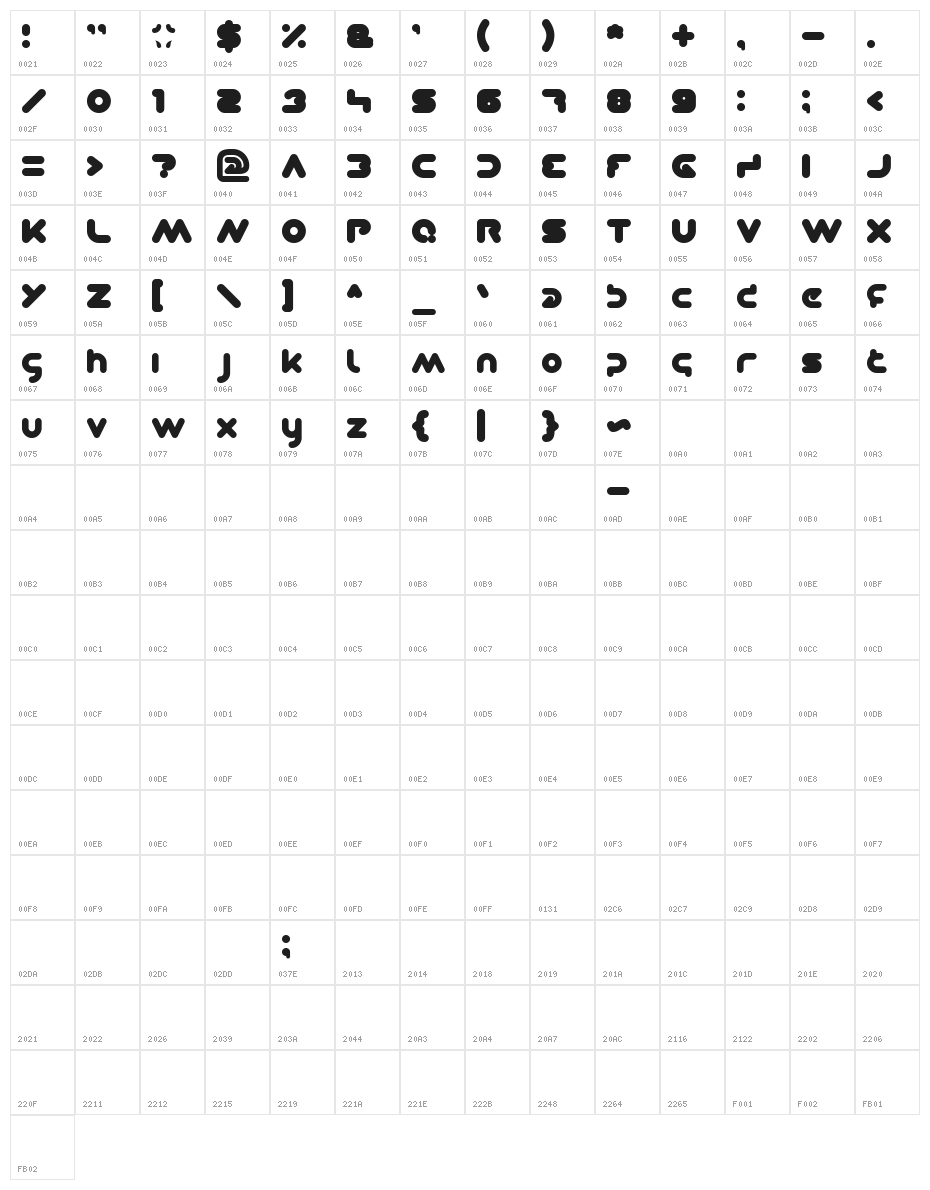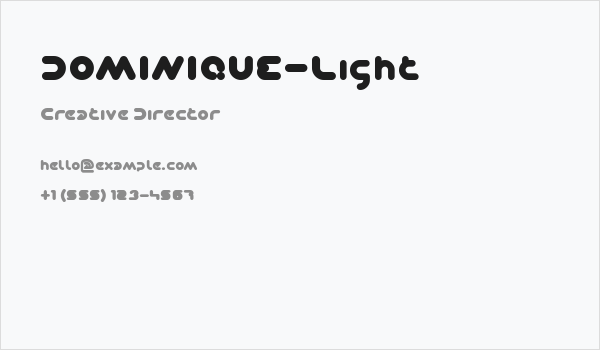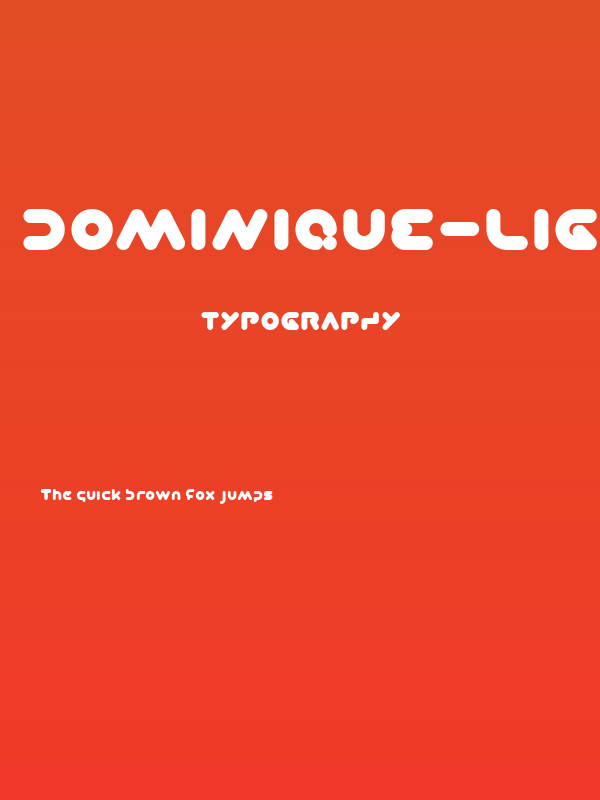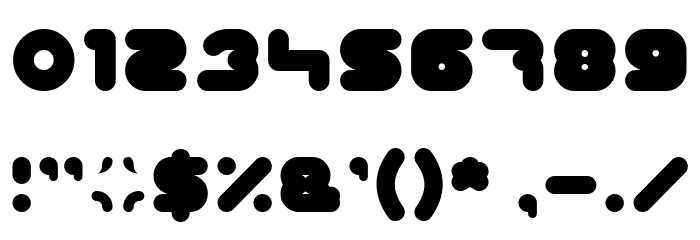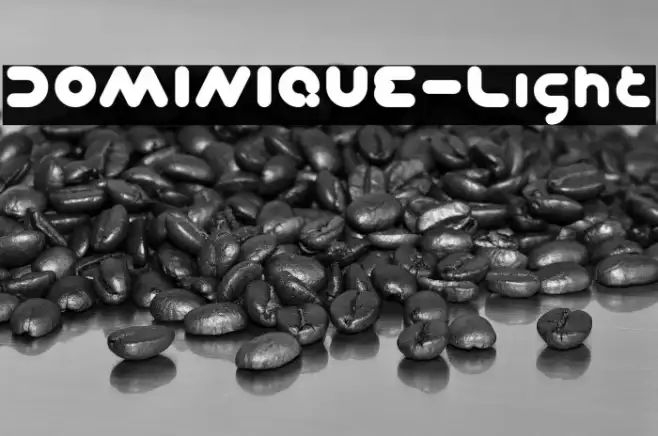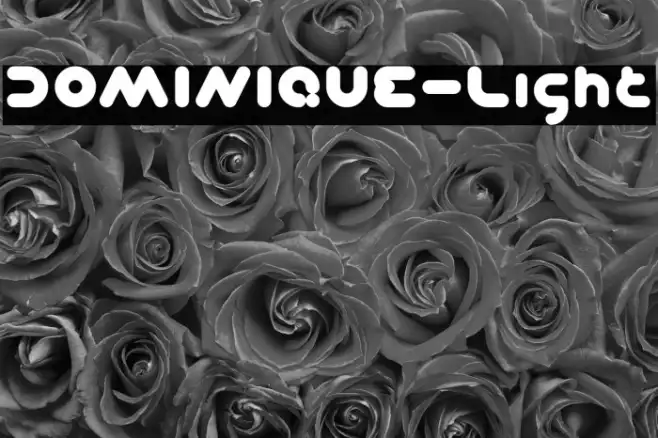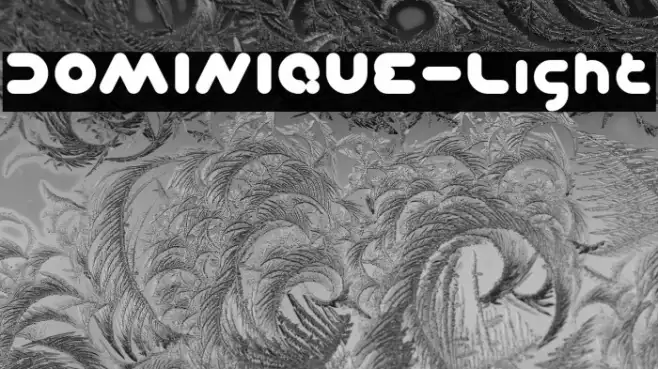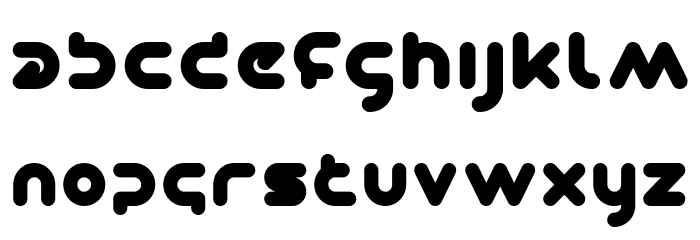
DOMINIQUE-Light Font
DOMINIQUE-Light Description
This font features a bold and rounded style with a futuristic and playful appearance. The characters are constructed with thick strokes and rounded edges, giving them a soft and approachable feel. The design is consistent across uppercase, lowercase, numbers, and special characters, maintaining a cohesive look. The rounded forms and uniform stroke width contribute to its modern and friendly aesthetic, making it suitable for a variety of creative applications.
DOMINIQUE-LIGHT UPPERCASE
DOMINIQUE-LIGHT LOWERCASE
DOMINIQUE-LIGHT OTHER CHARS
| Use Case | Logos, Posters, Headlines |
| Proposed Projects | Ideal for branding, children's books, tech-related designs, and playful advertising. |